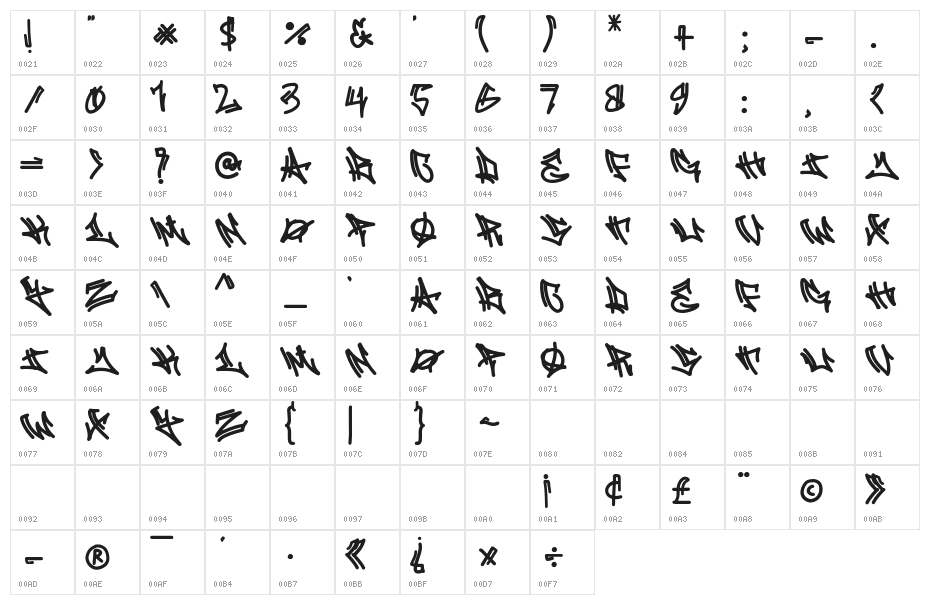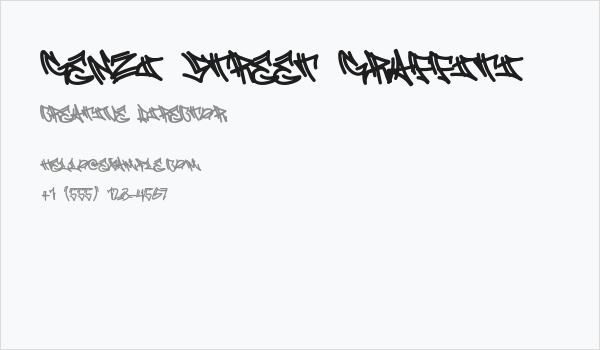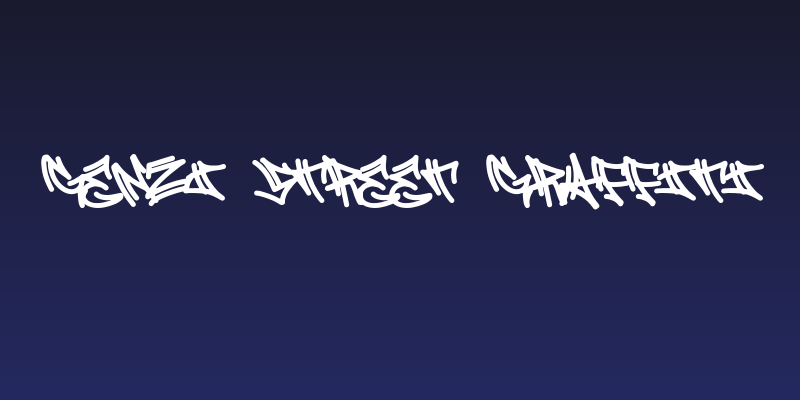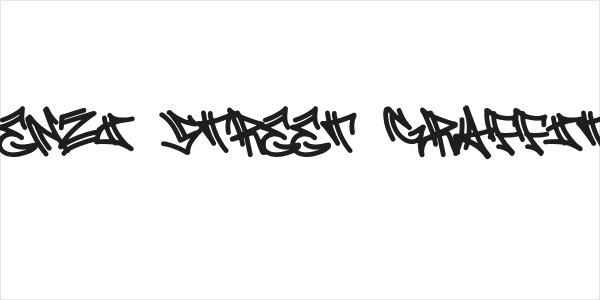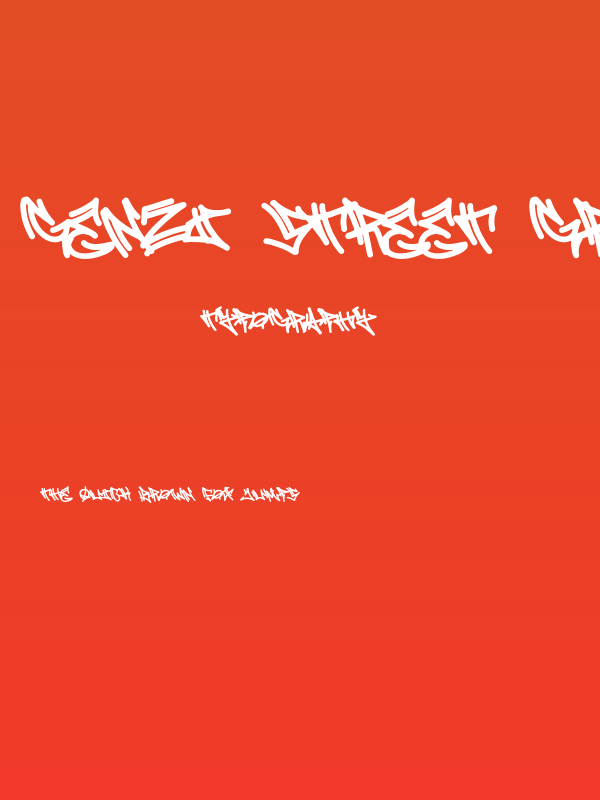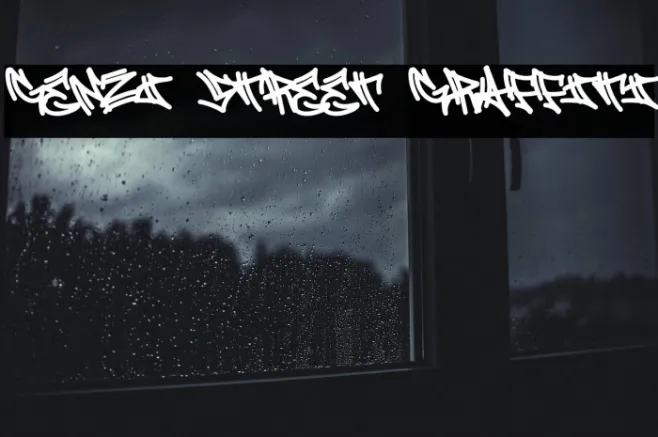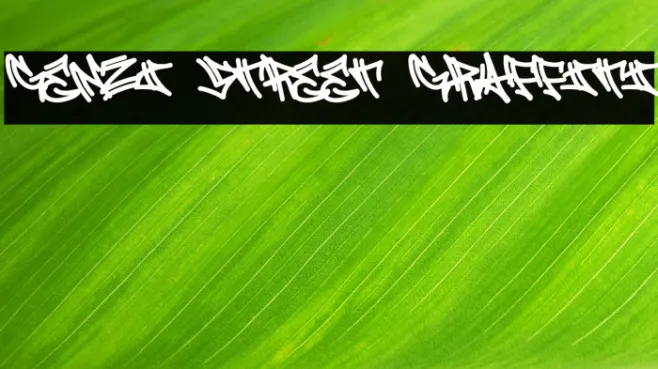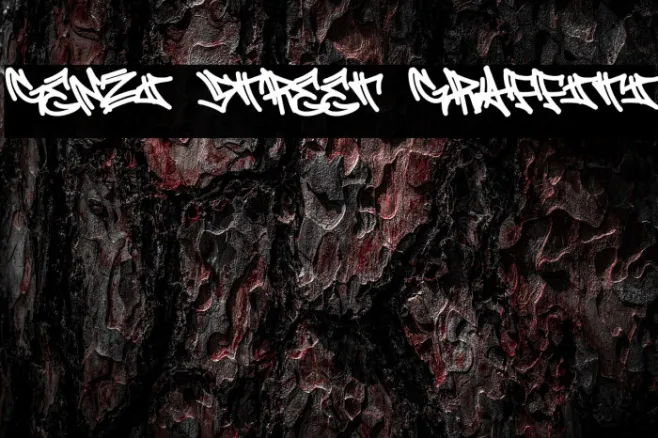
Genzi Street Graffiti Font
| Gesamtstil | Urban, Edgy, Artistic |
| Anwendungsfall | Logos, Posters, Street Art, Album Covers |
| Vorgeschlagene Projekte | Ideal for street art projects, urban-themed designs, music album covers, and edgy branding. |